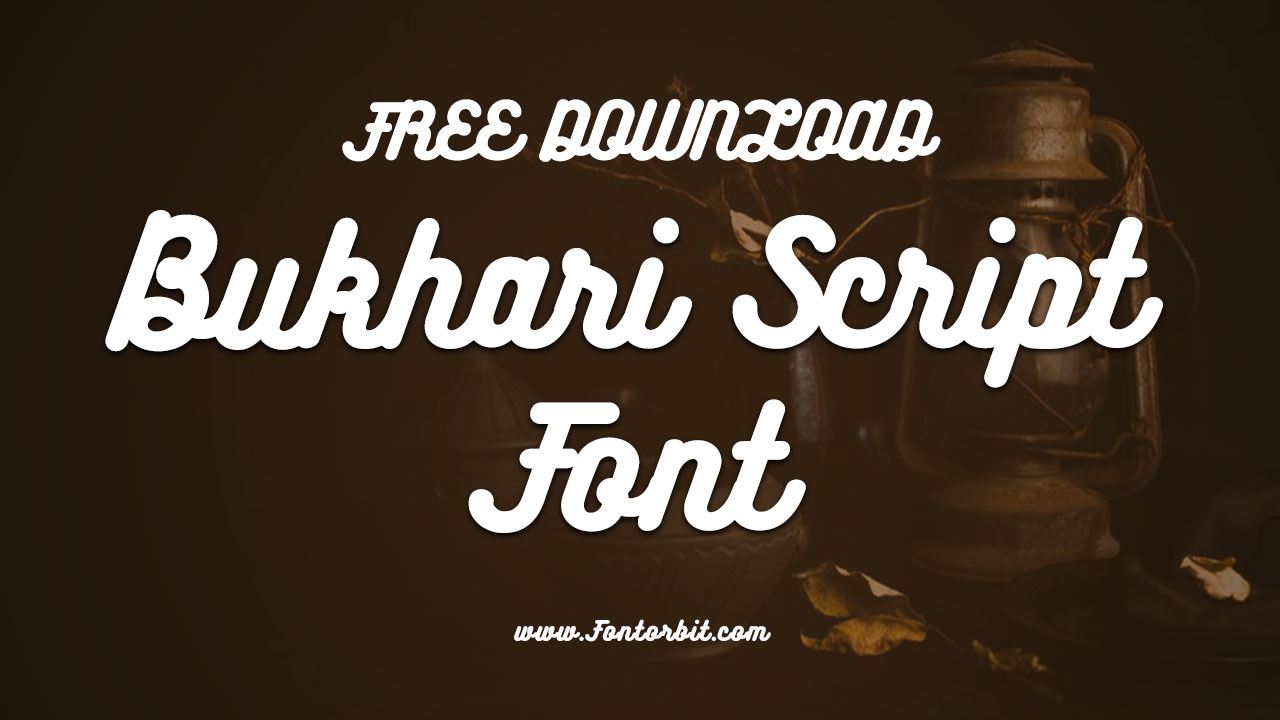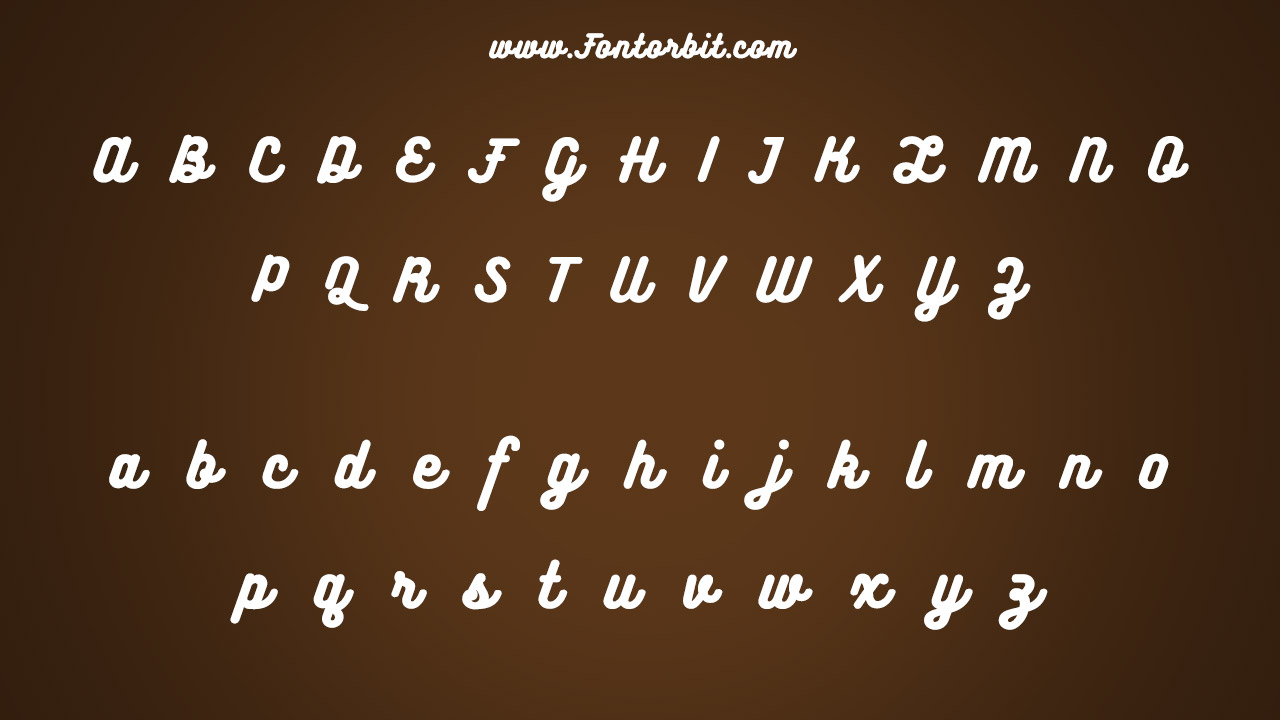
Bukhari Script is an elegant and sophisticated typeface designed by the talented font designer Mikrojihad Inc.
Released in 2014, this script font features a beautiful, flowing style reminiscent of classic calligraphy. Bukhari Script is part of the Script font family and features decorative and cursive characteristics.
Bukhari Script is available in a single style, showcasing its unique calligraphic charm. This font captures attention with its fluid, hand-drawn appearance, making it ideal for various design projects.
Notable Uses Of Bukhari Script
Bukhari Script’s graceful strokes make it suitable for:
- Wedding invitations and formal event stationery
- Branding materials, including logos and product packaging
This font is perfect for:
- Elegant, high-end designs where a touch of sophistication is needed
- Creative projects that require a personalized, handwritten look
Bukhari Script stands out with its exquisite calligraphic style, making it a versatile choice for various elegant design needs. Its flowing curves and sophisticated flair can enhance the visual appeal of any project, adding a touch of classic beauty.
6.What Are The Best Uses For The Bukhari Script?
It is ideal for invitations, branding, and any design needing a touch of elegance.
8.Is Bukhari Script Easy To Read In Small Sizes?
Its intricate design is best used in larger sizes to maintain readability.